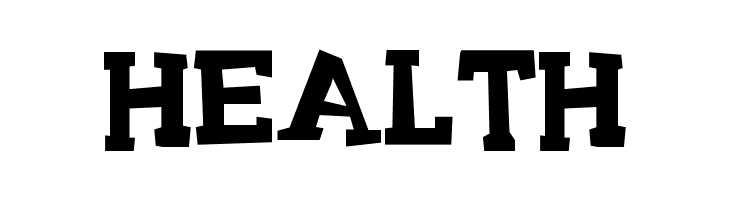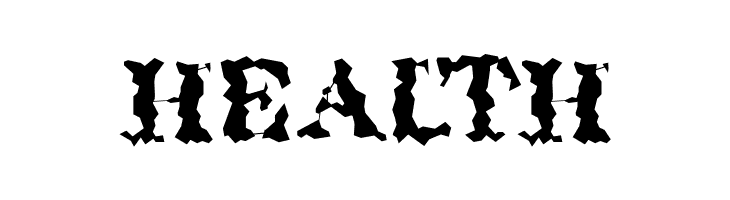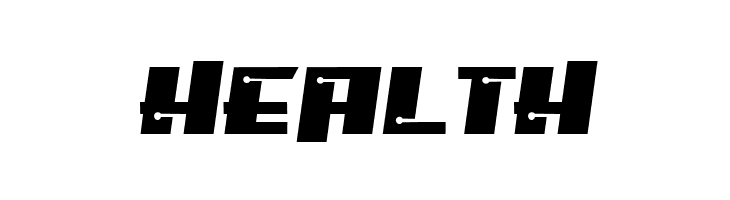
• Psiphoon BB
A bold, angular font with a futuristic and dynamic design.
• Pummel
• Pundit
• Pure evil 2
( Fonts by Christopher Hansen )
A bold, angular font with a gothic influence and high contrast.
• Purple Boxers
A playful, hand-drawn font with a whimsical and artistic style.
• Put Another One In
A playful, hand-drawn font with dynamic and irregular letterforms.
• PuzzleParts
A playful font with characters shaped like jigsaw puzzle pieces, ideal for fun and creative projects.
• Quadrophonic
• QuakeRoman
A rugged, distressed font with a jagged, chaotic appearance.
• Quivira
( Alexander Lange - www.quivira-font.com/ )
A classic serif typeface with balanced elegance and moderate contrast.